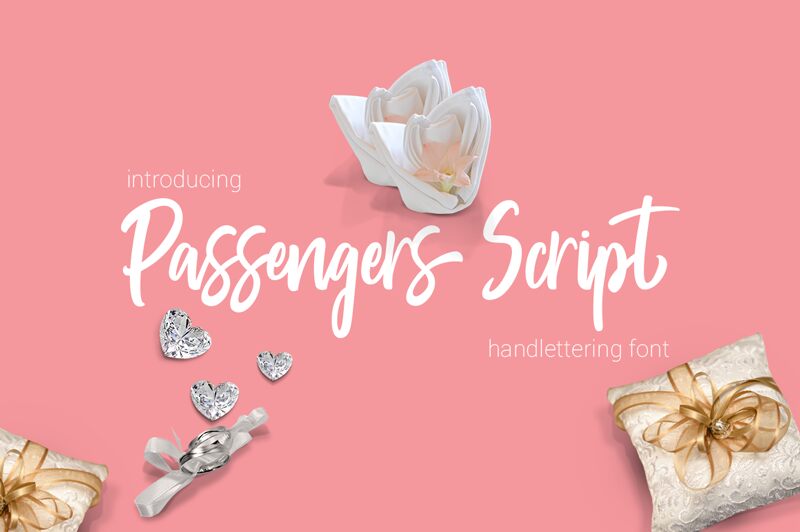
Passengers Script, a creation of Pathero Studio, is a semi-condensed handwritten font that stands out with its personal touch. It exudes an aesthetic appeal that combines the charm of handwritten script with the meticulous craftsmanship of modern typography. This font’s flowing, connected characters suggest elegance and sophistication, while its semi-condensed width contributes to efficient space usage without compromising readability.
The style of Passengers Script lends itself to a variety of creative projects. Its intimate and approachable character makes it perfect for invitations, branding, and advertising where a touch of personality is desired. It can also elevate the design of book covers, greeting cards, and packaging with its stylish flair.
In sum, Passengers Script is not just a typeface but an artistic statement-a versatile choice for designers seeking to infuse their work with both warmth and professionalism.